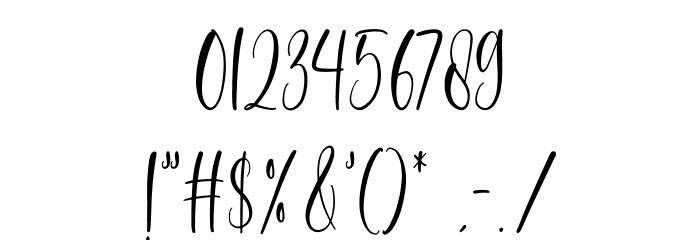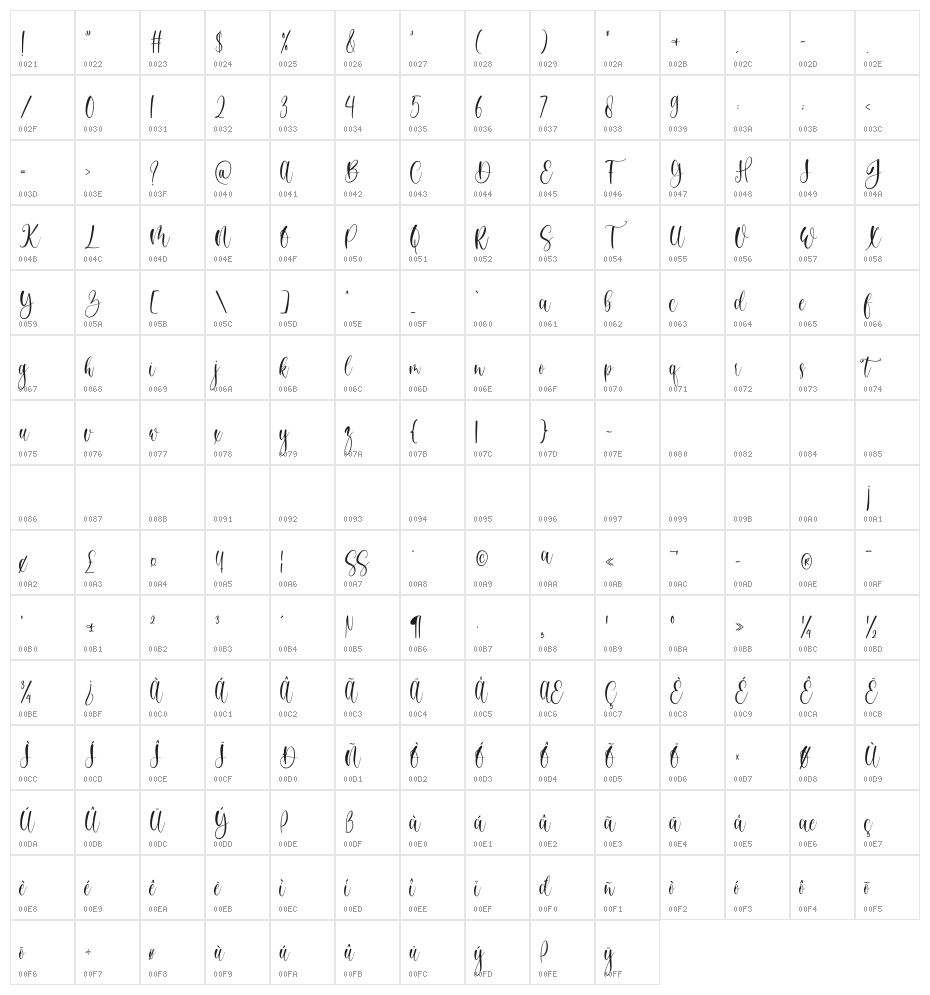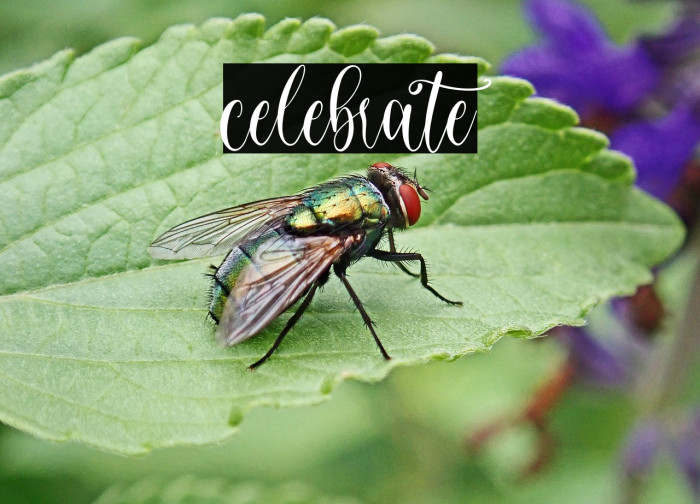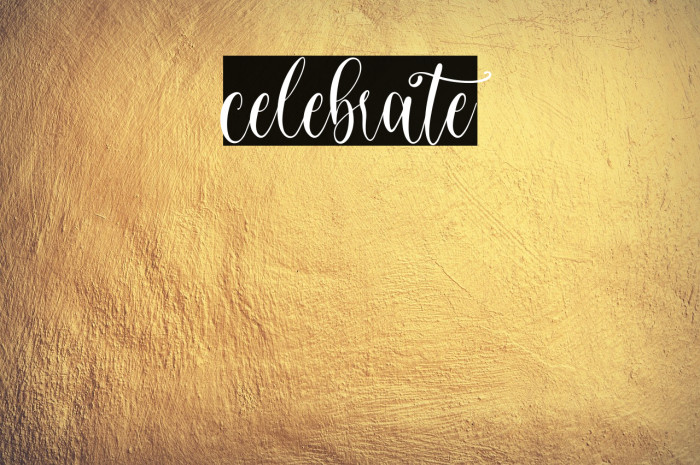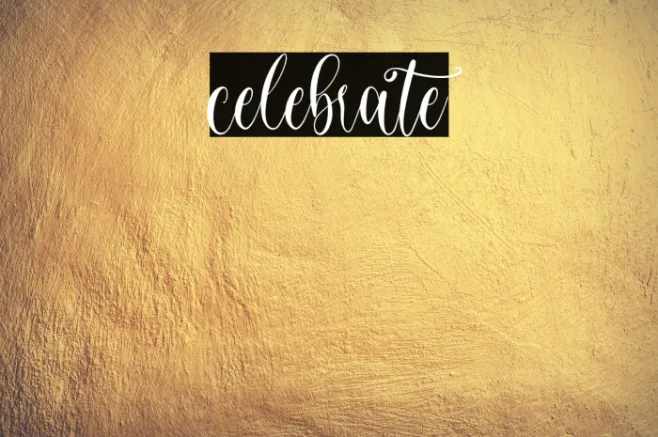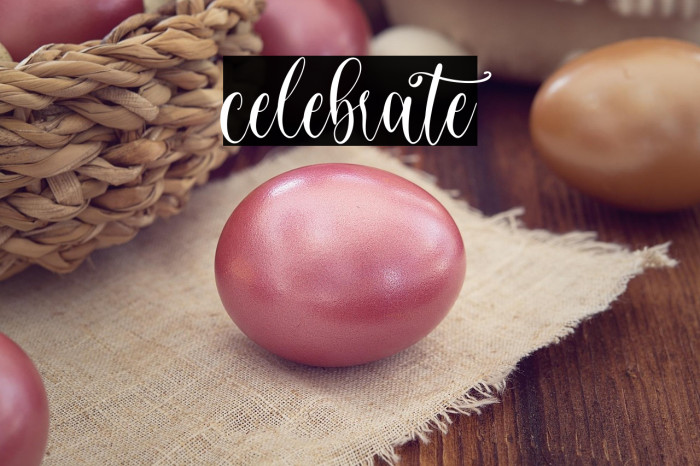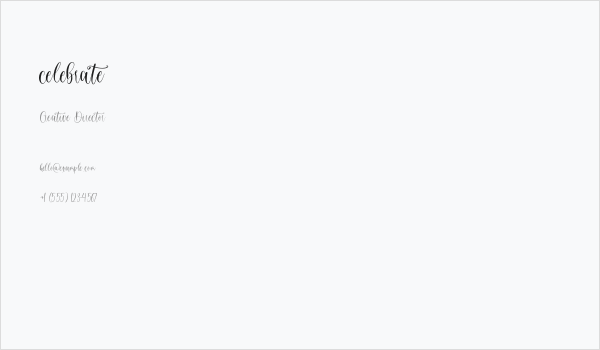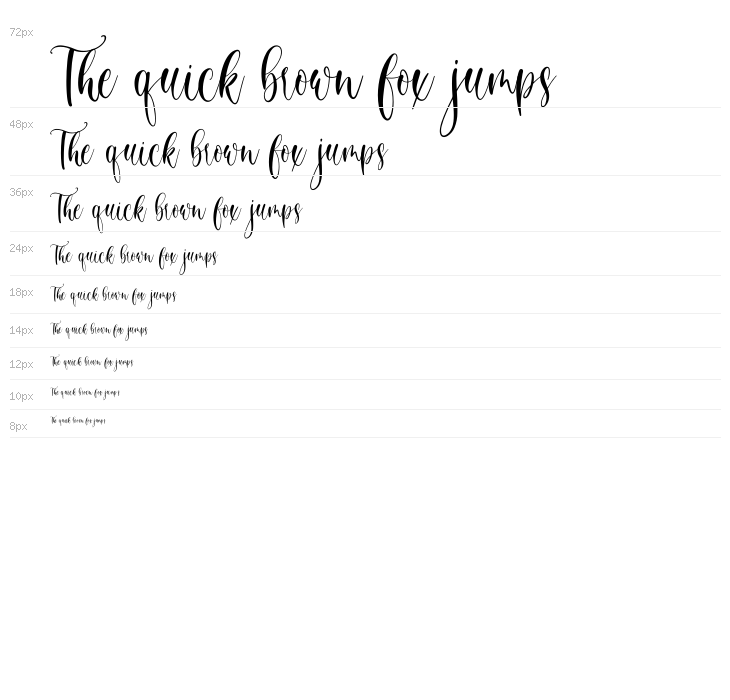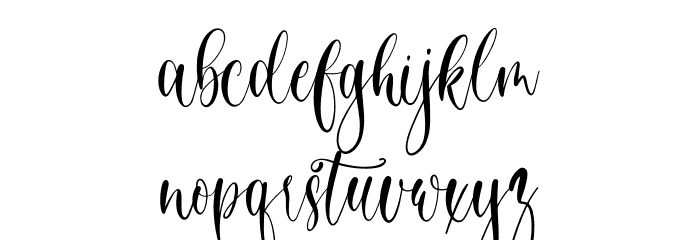
celebrate Font
celebrate Description
This elegant script font features a flowing, cursive style with intricate loops and swashes, giving it a sophisticated and artistic appearance. The uppercase letters are particularly elaborate, with dramatic flourishes that extend beyond the baseline and cap height, creating a sense of movement and grace. The lowercase letters maintain a consistent style, with smooth connections between characters that enhance readability while preserving the decorative nature of the font. The numerals and special characters are designed to match the overall aesthetic, ensuring a cohesive look across all text elements. This font is ideal for projects that require a touch of elegance and creativity.
| Overall Style | Elegant, Artistic |
| Proposed Projects | Wedding invitations, greeting cards, branding materials, and elegant packaging designs. |